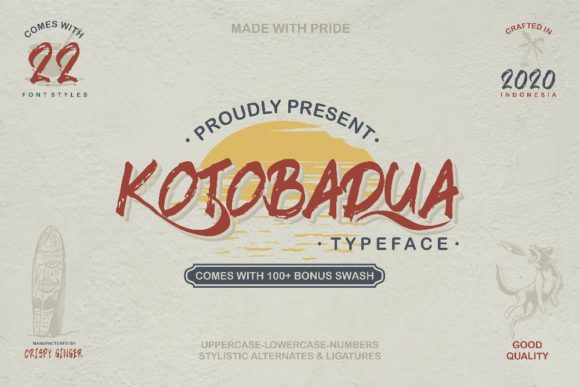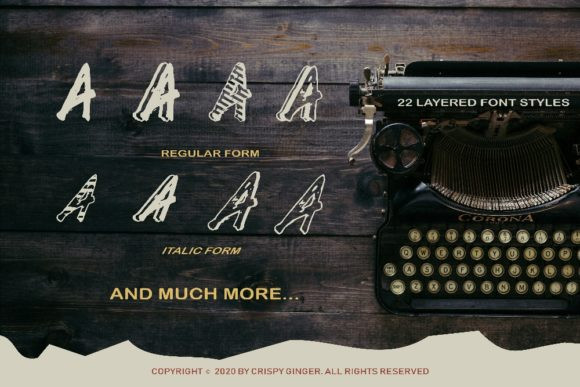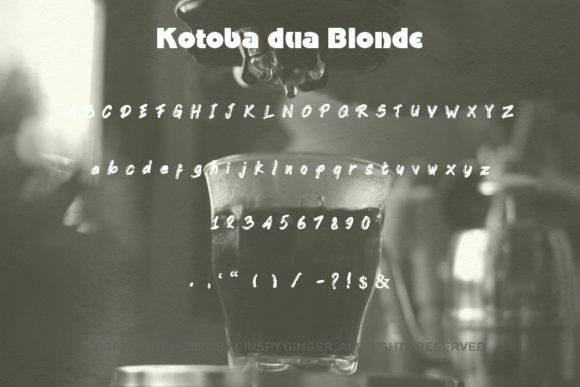
Kotobadua Font
Kotobadua is a bold display font, designed with the help of a unique and outstanding brush pen. This font has the potential to bring each of your creative ideas to the highest level!